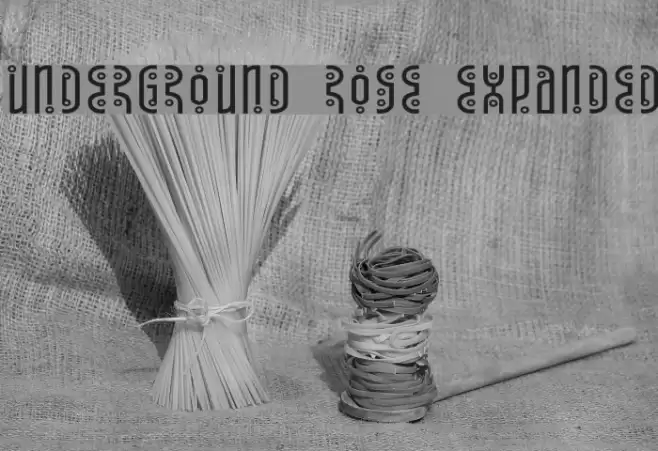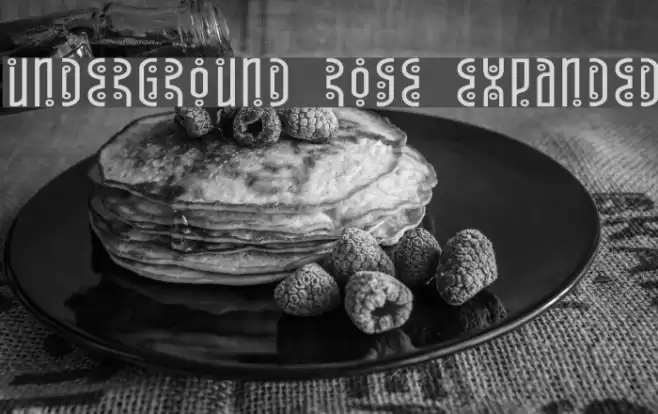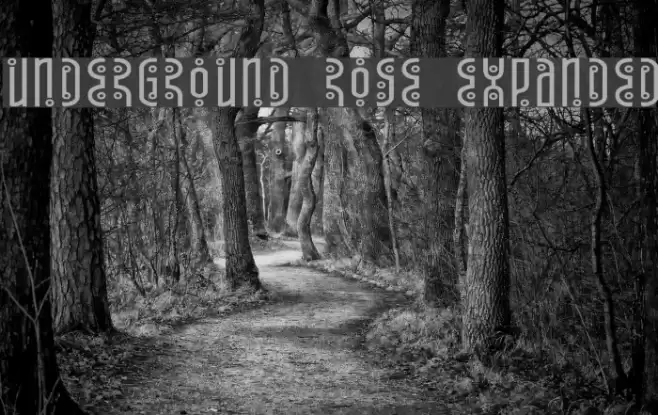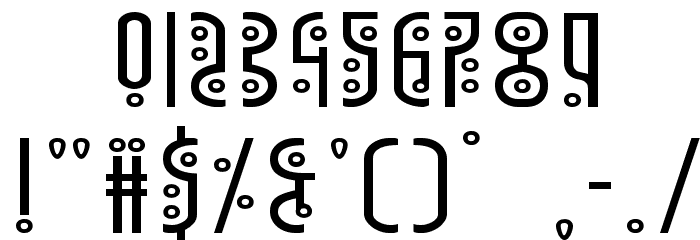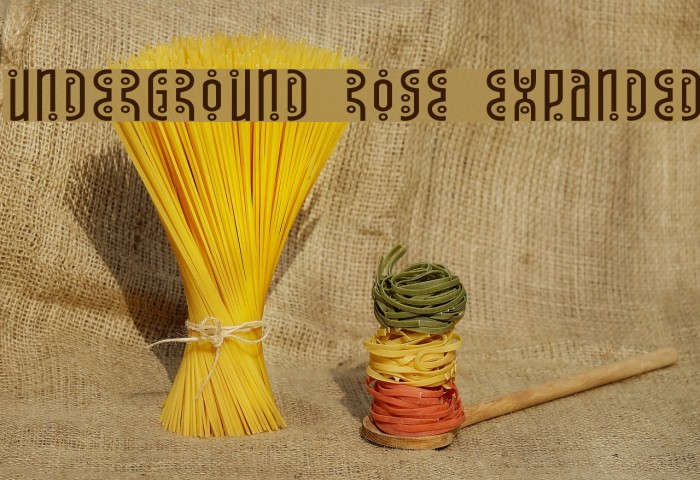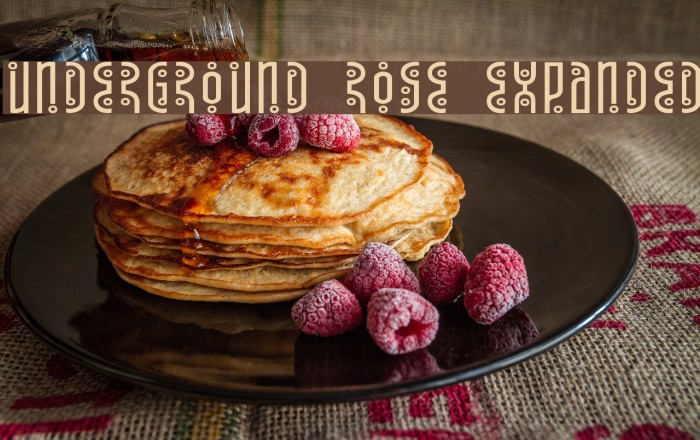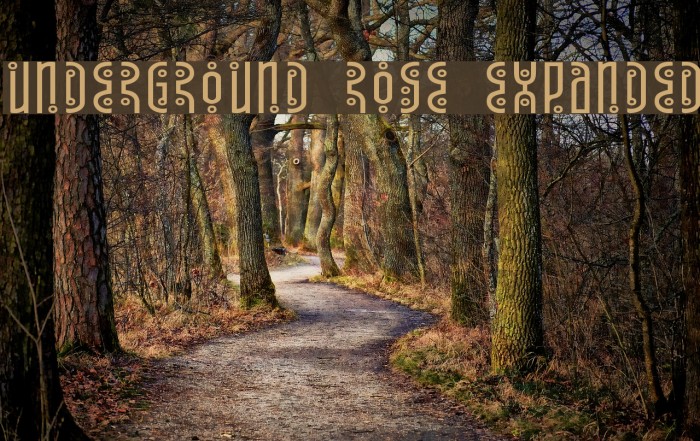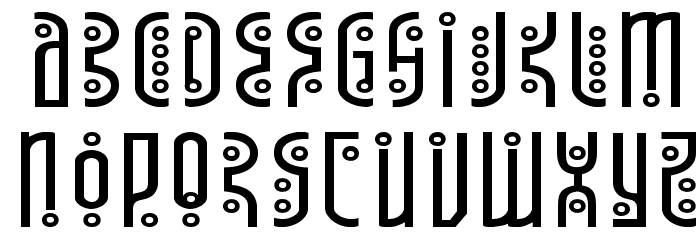
Underground Rose Expanded Font
Underground Rose Expanded Description
This font features a unique and modern design with a decorative flair. Each character is adorned with circular embellishments that give it a futuristic and artistic appearance. The strokes are bold and consistent, providing a strong visual impact. The overall design is symmetrical, with a focus on geometric shapes and patterns. This font stands out due to its distinctive style, making it ideal for creative projects that require a touch of originality and innovation.
A modern, decorative font with bold strokes and circular embellishments from Uncategorized fonts.
- Proposed Projects: Ideal for branding, posters, album covers, and any project requiring a futuristic and artistic touch.